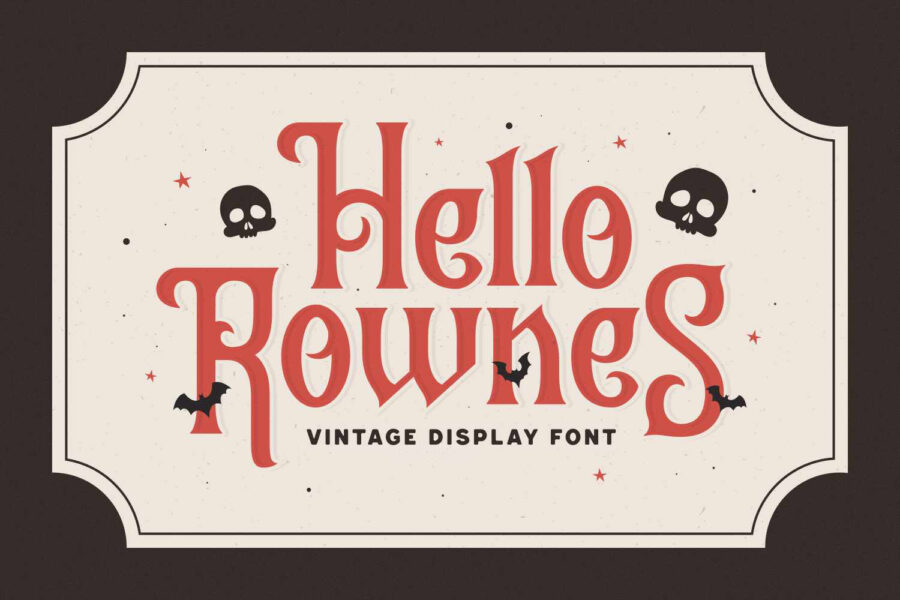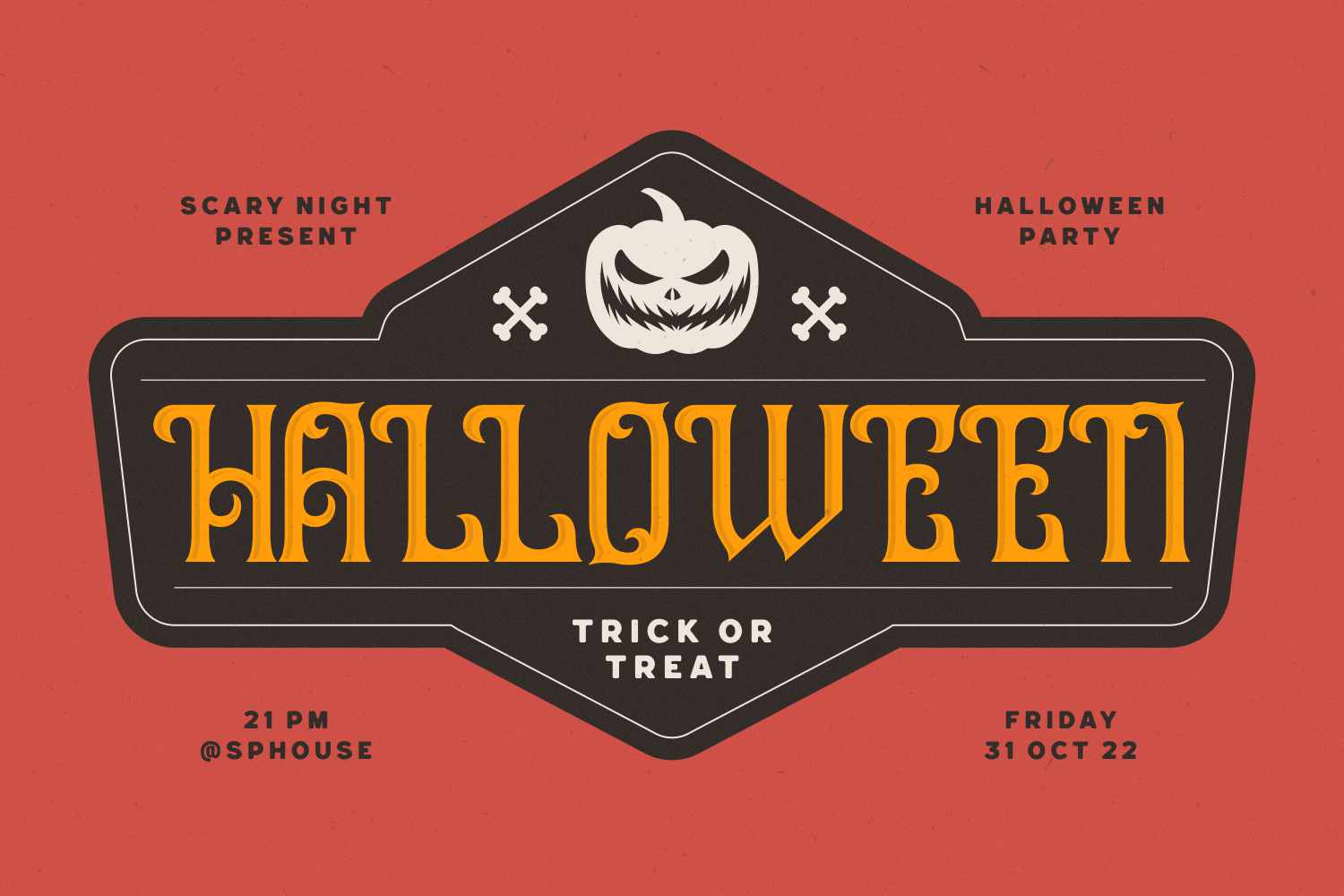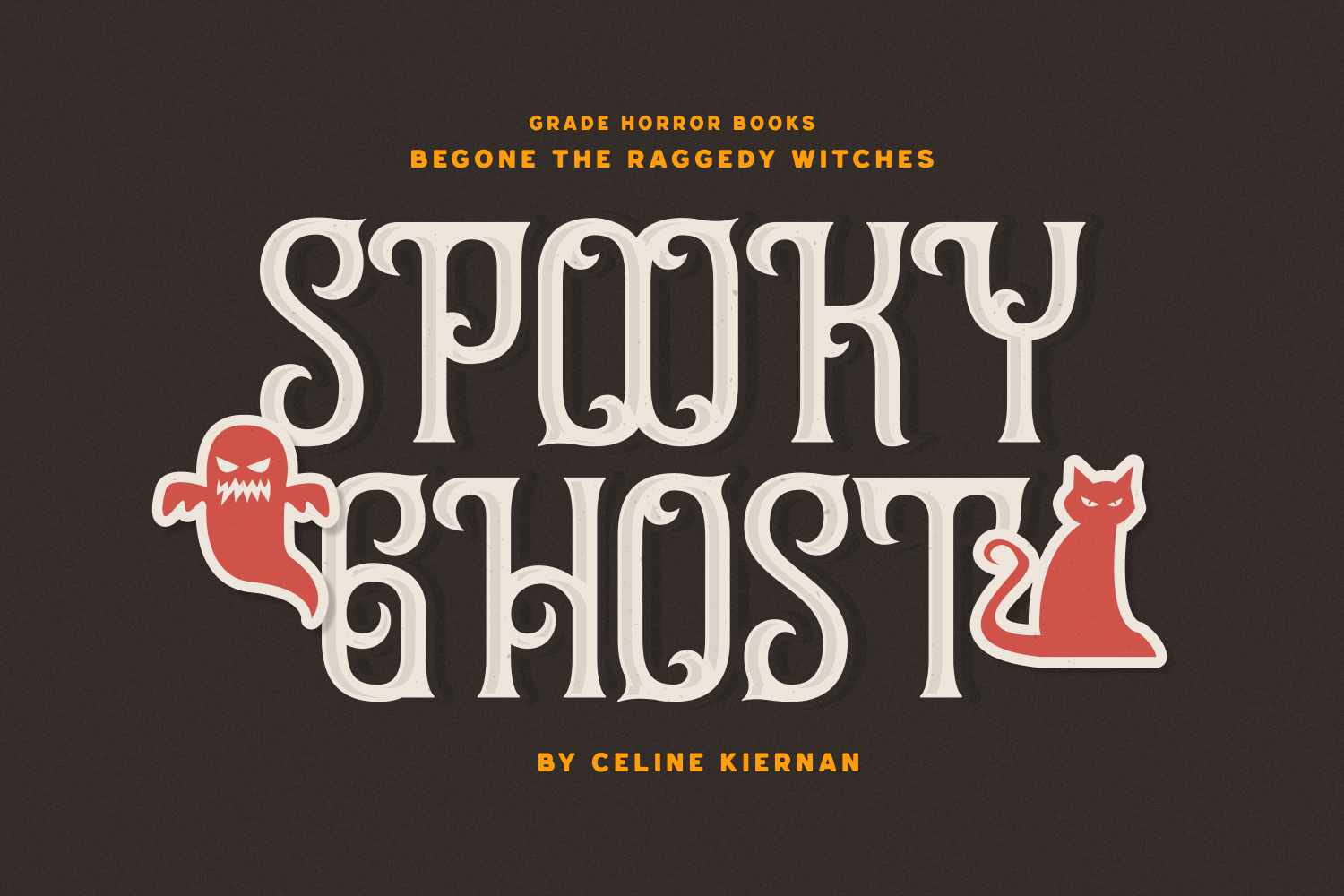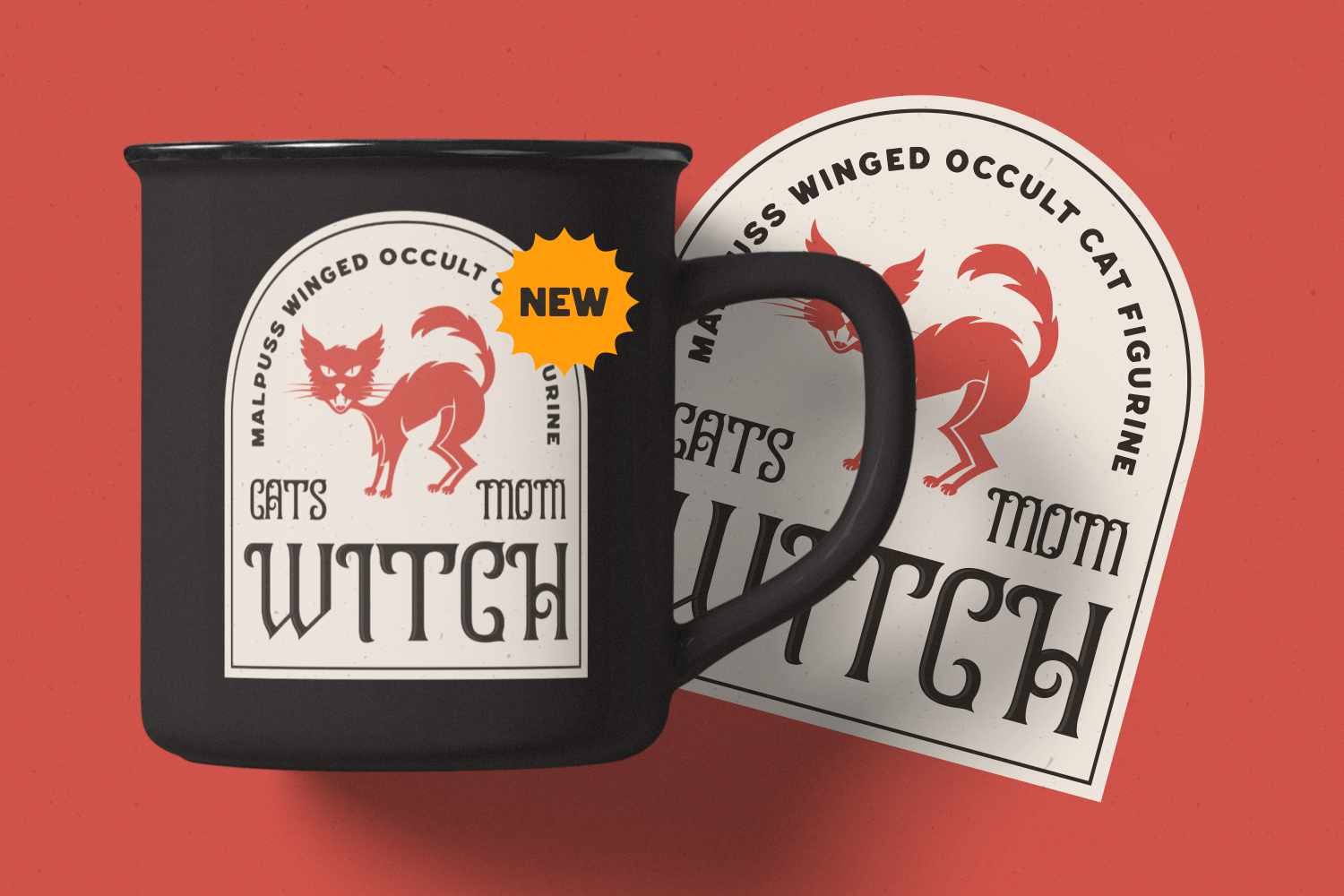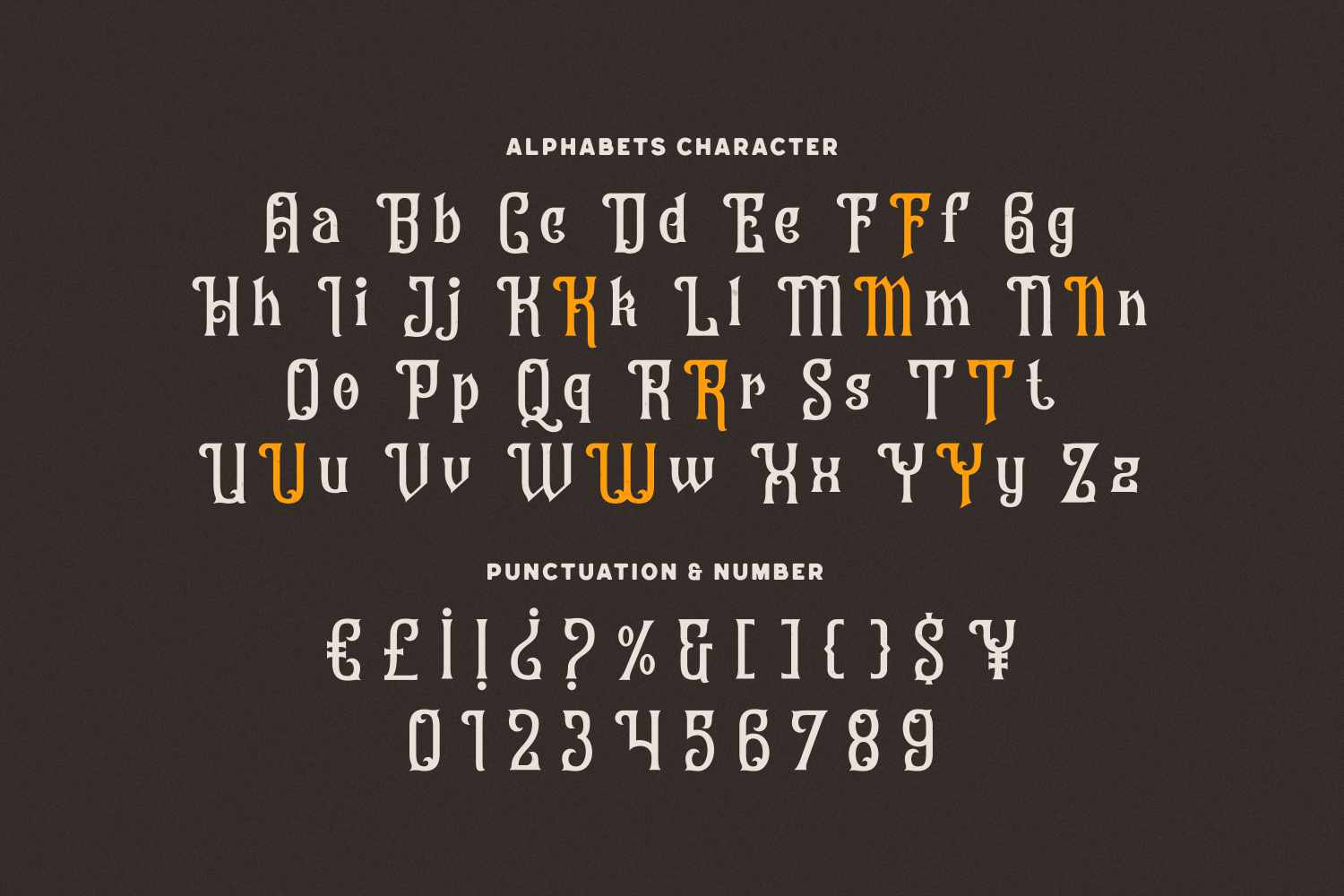
Hello Rownes is a vintage display font with a spooky yet playful personality. Its bold curves, unique serifs, and gothic-inspired shapes make it perfect for projects that need a mysterious and dramatic touch. With its distinctive letterforms, this font instantly creates a Halloween vibe, blending retro style with eerie charm.
Ideal for Halloween posters, horror book covers, party invitations, packaging, and merchandise, Hello Rownes brings a fun gothic aesthetic to your designs. Whether you’re working on seasonal themes or creative branding that requires a bold and theatrical typeface, Hello Rownes will add character and atmosphere to any project.
Hello Rownes